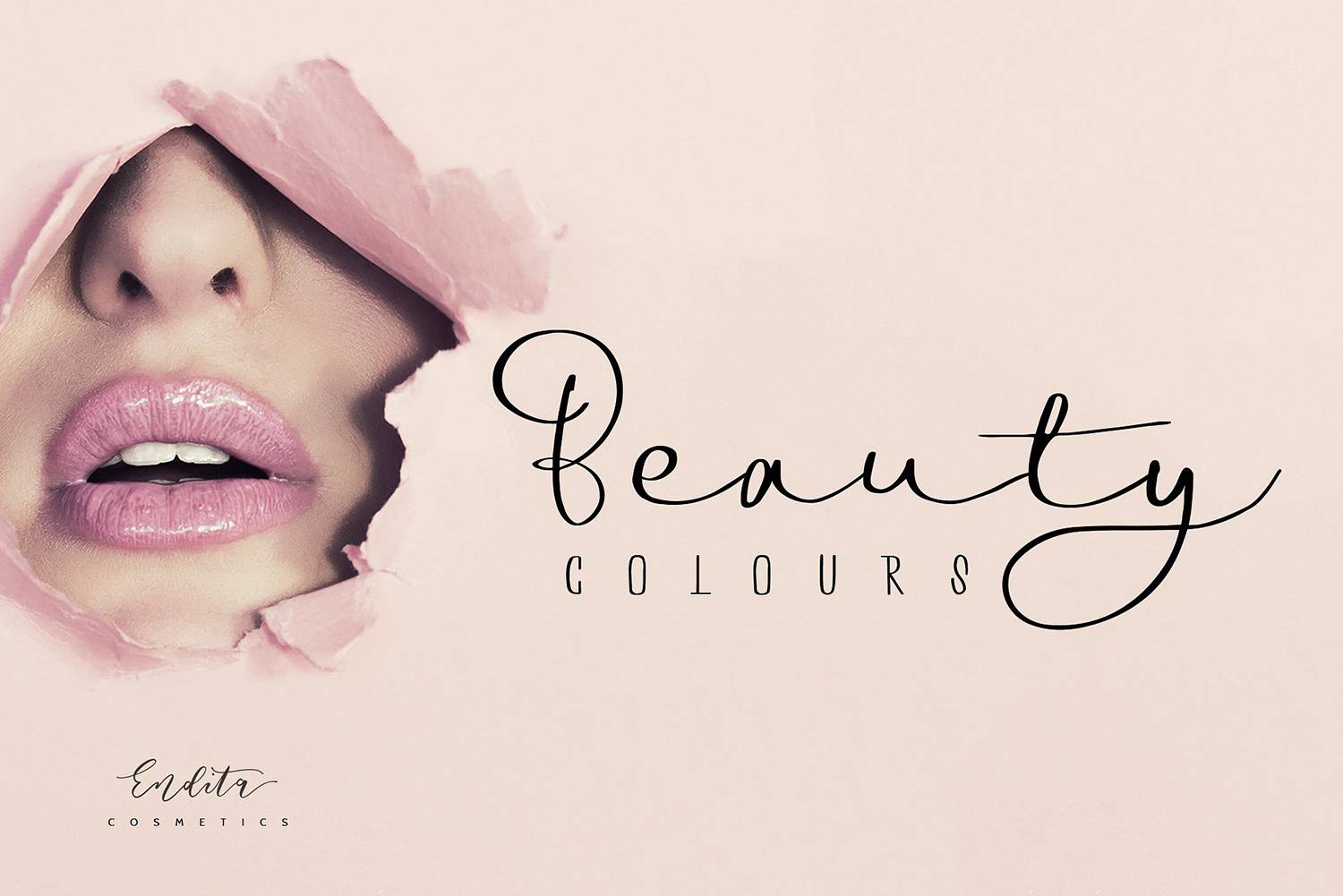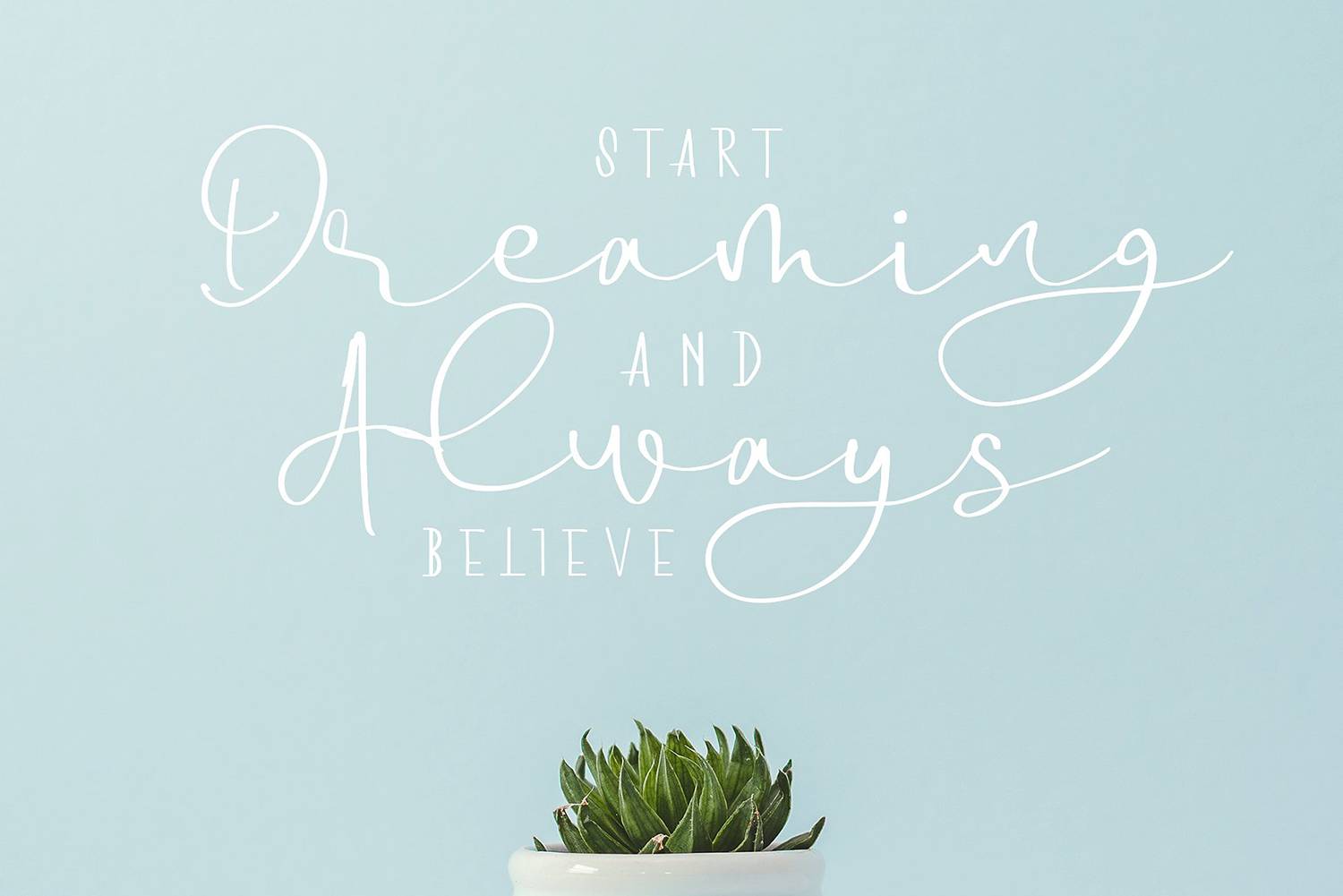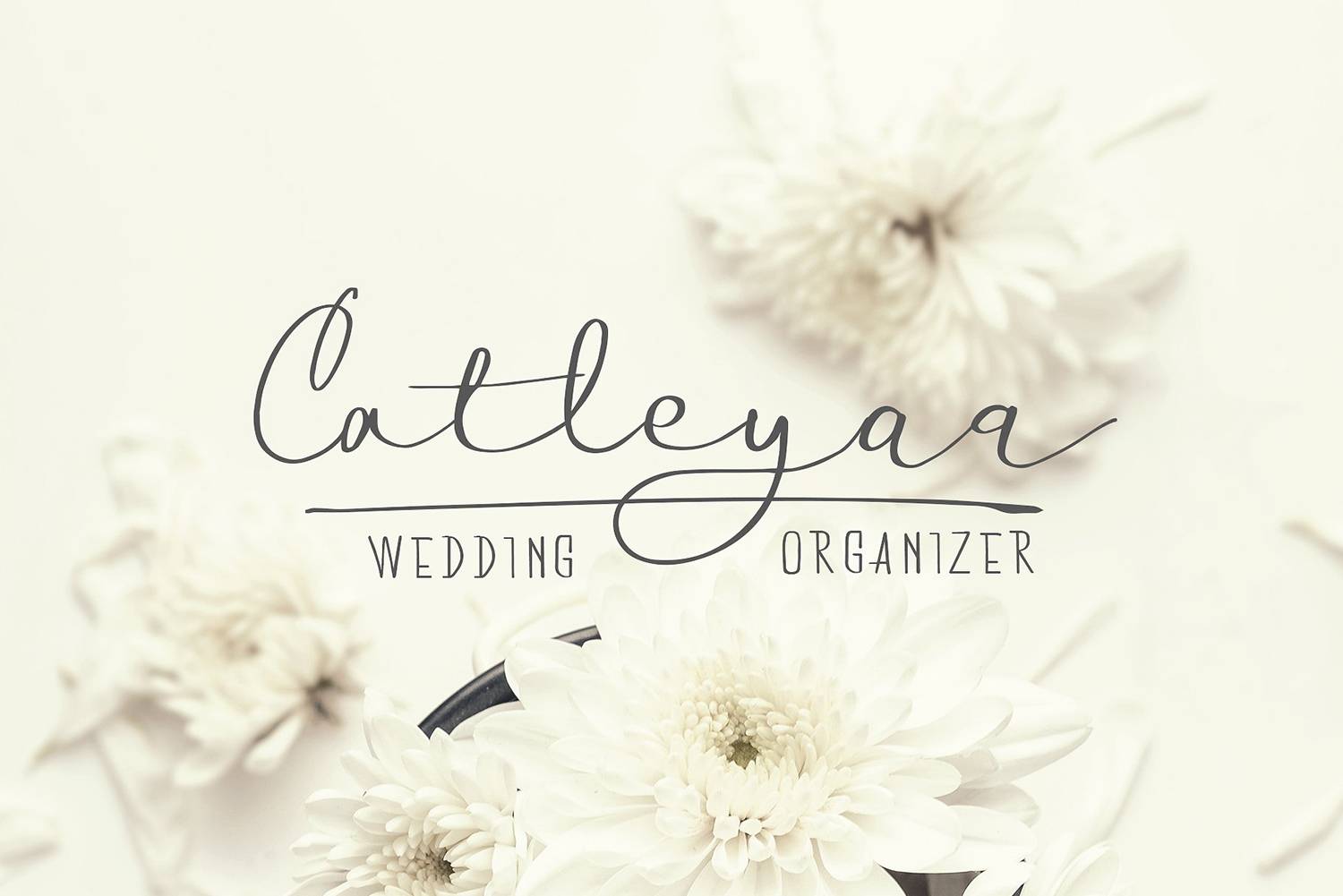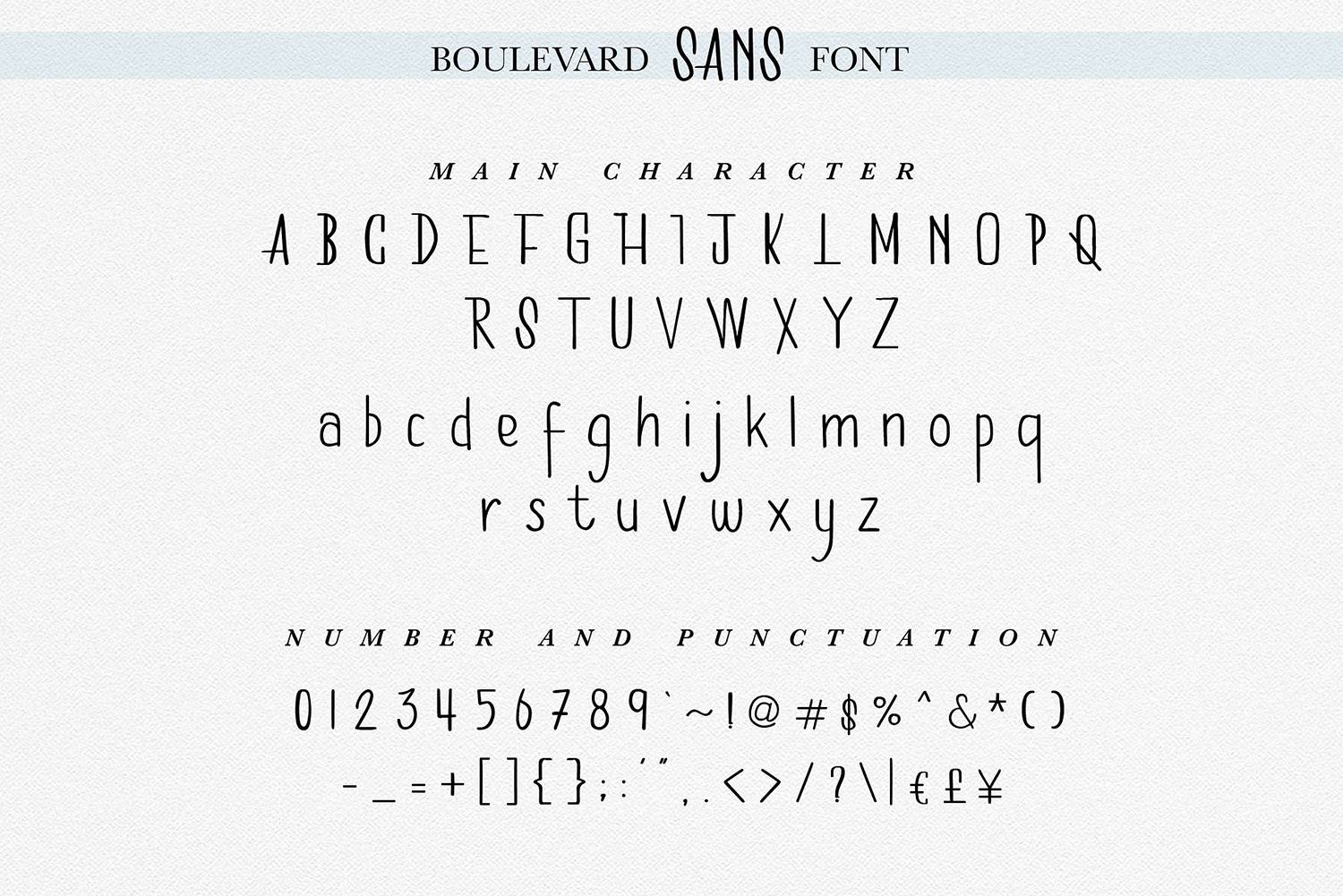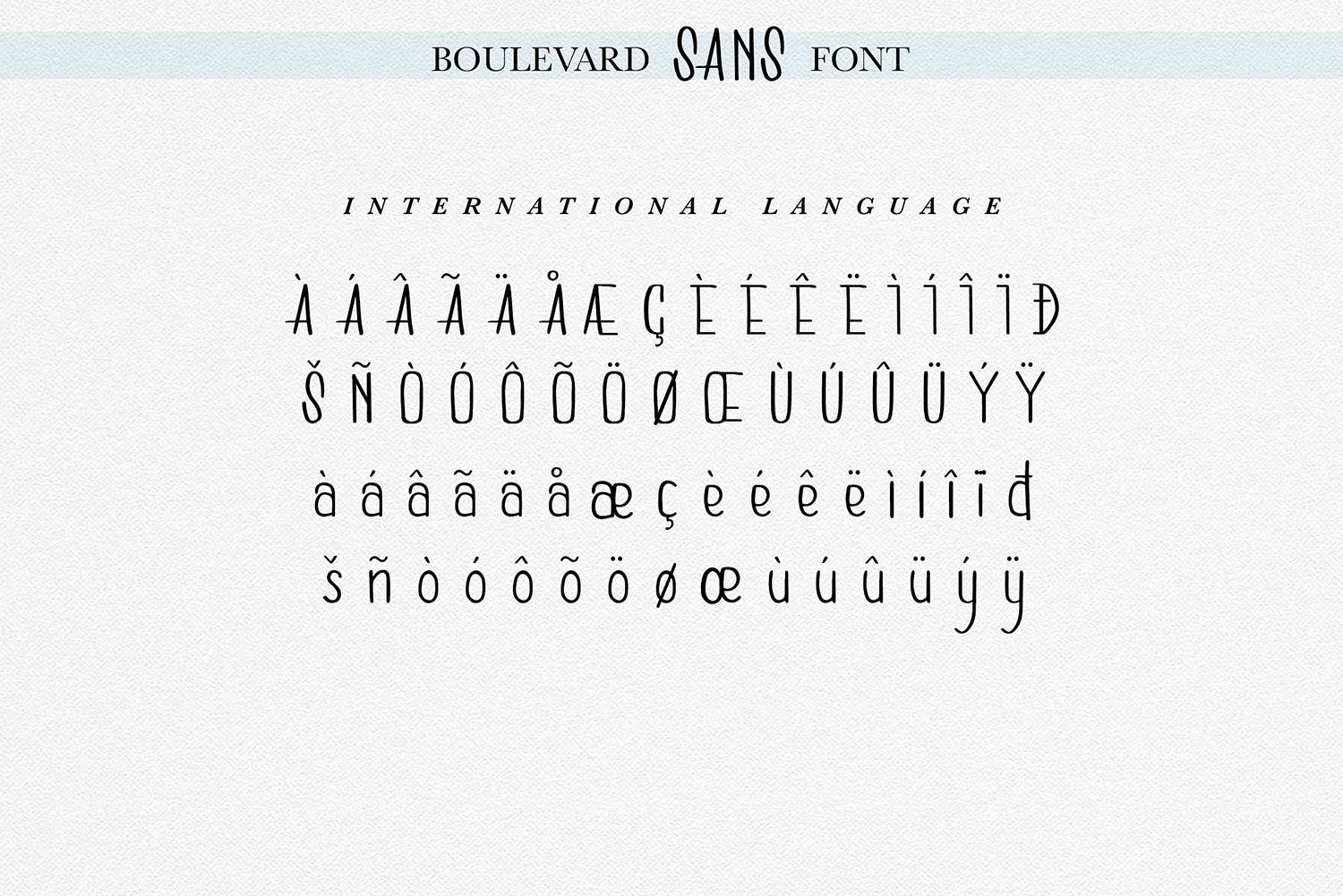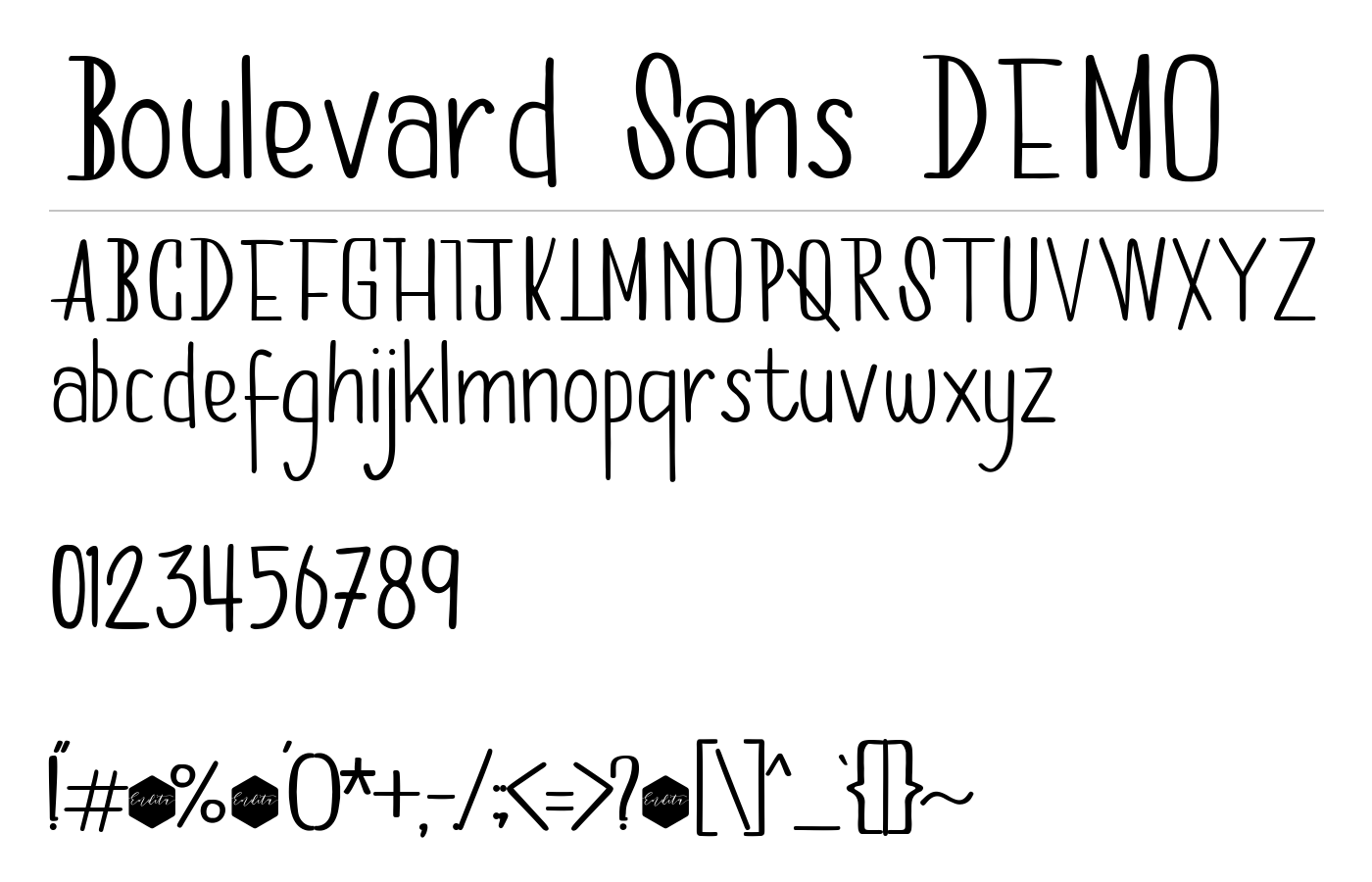
Boulevard Sans is a playful and quirky sans serif font characterized by its narrow, tall letterforms and slightly irregular, hand-drawn style. Its light weight and simple strokes give it a friendly, informal feel, making it ideal for creative projects, casual branding, and editorial designs that want to convey personality and approachability. This font works especially well in headlines, logos, and packaging where a unique and charming touch is desired.
Boulevard Font
About Boulevard Font
| Designer | Ingga Endita Nafasyah |